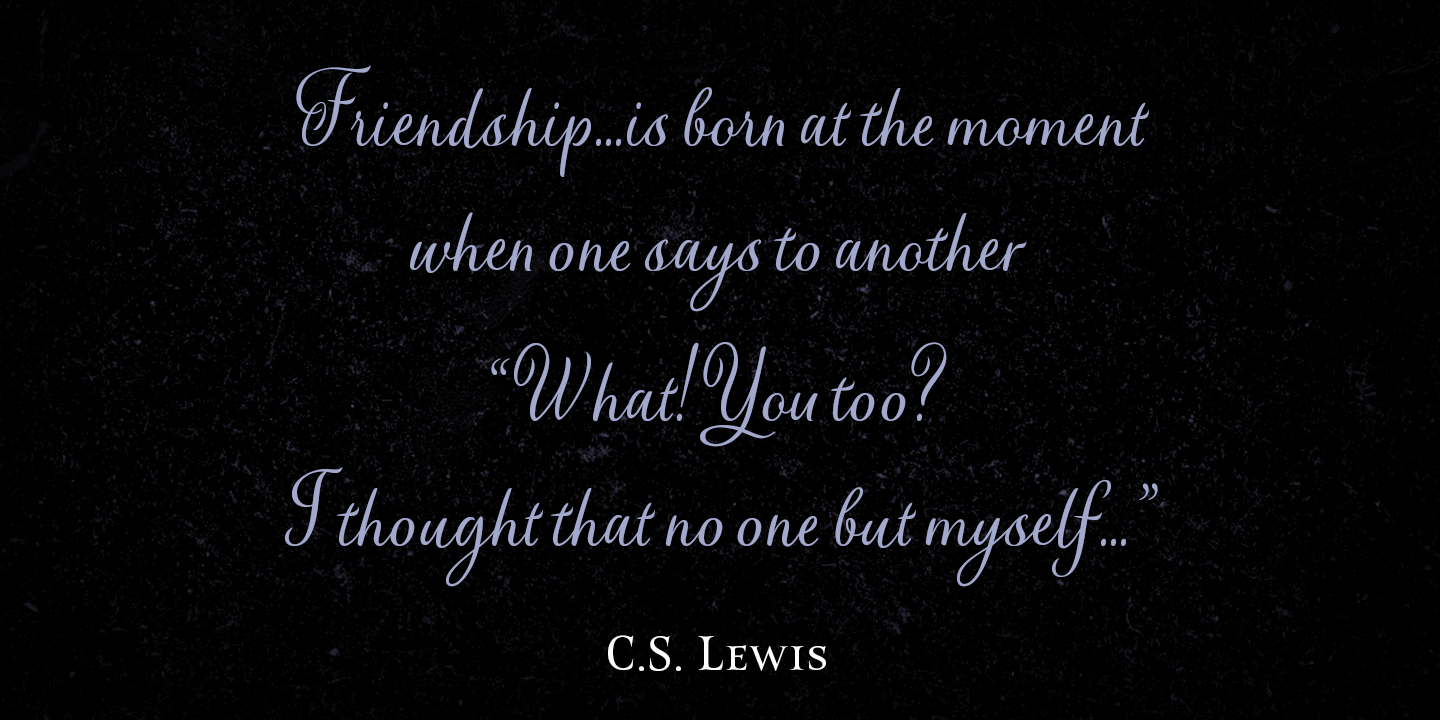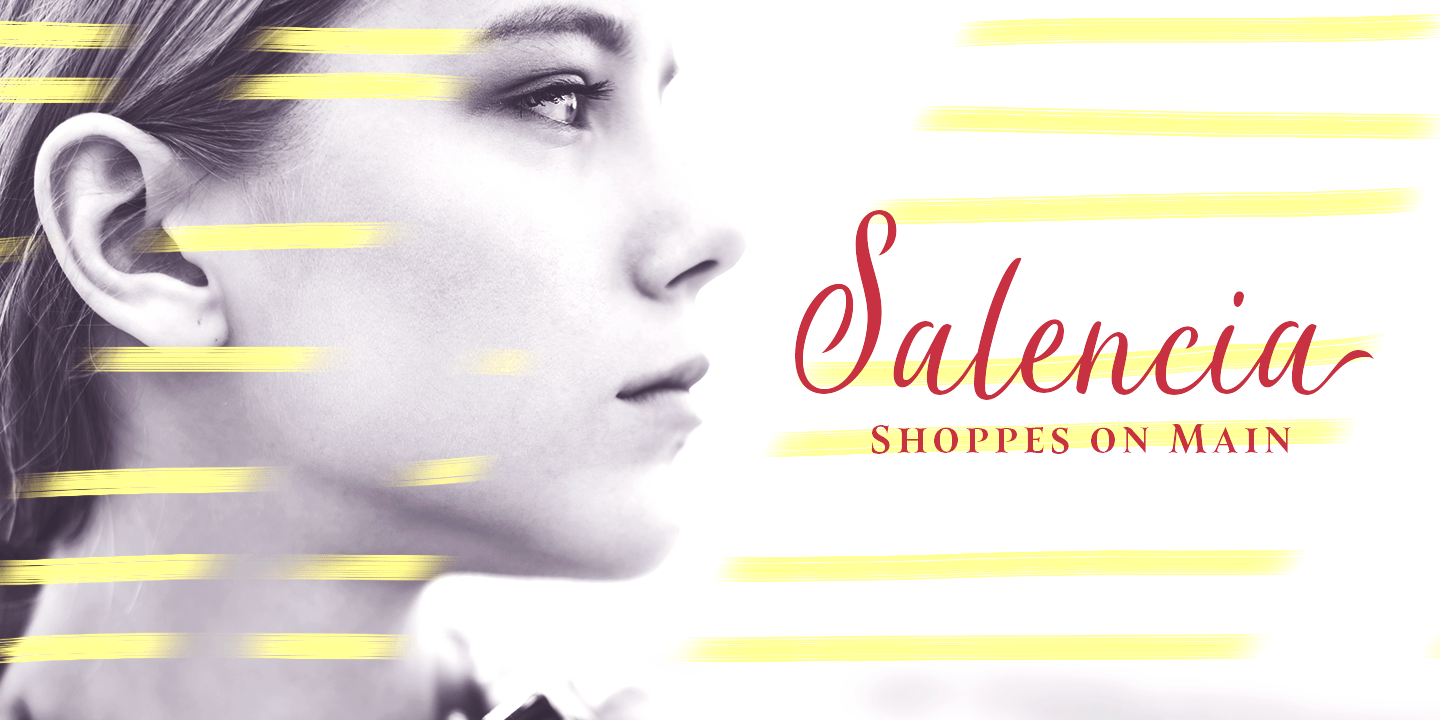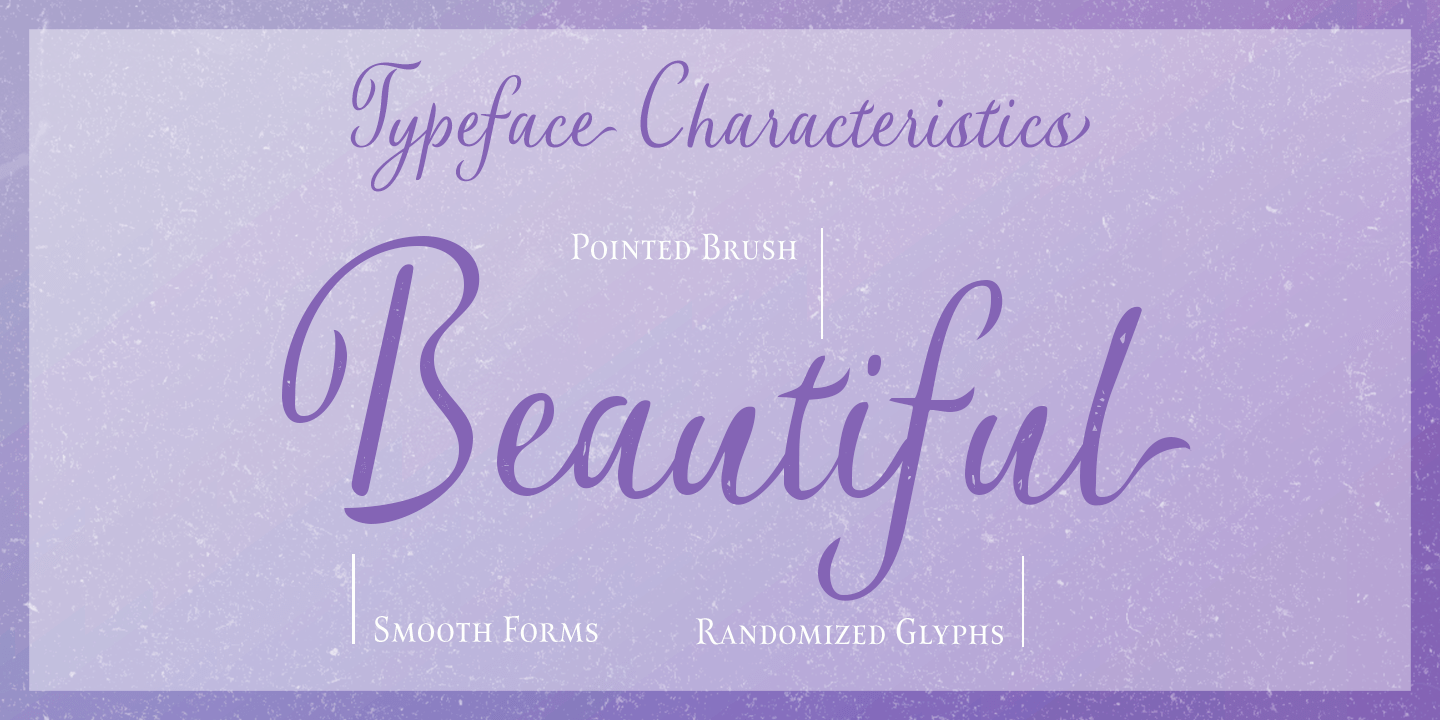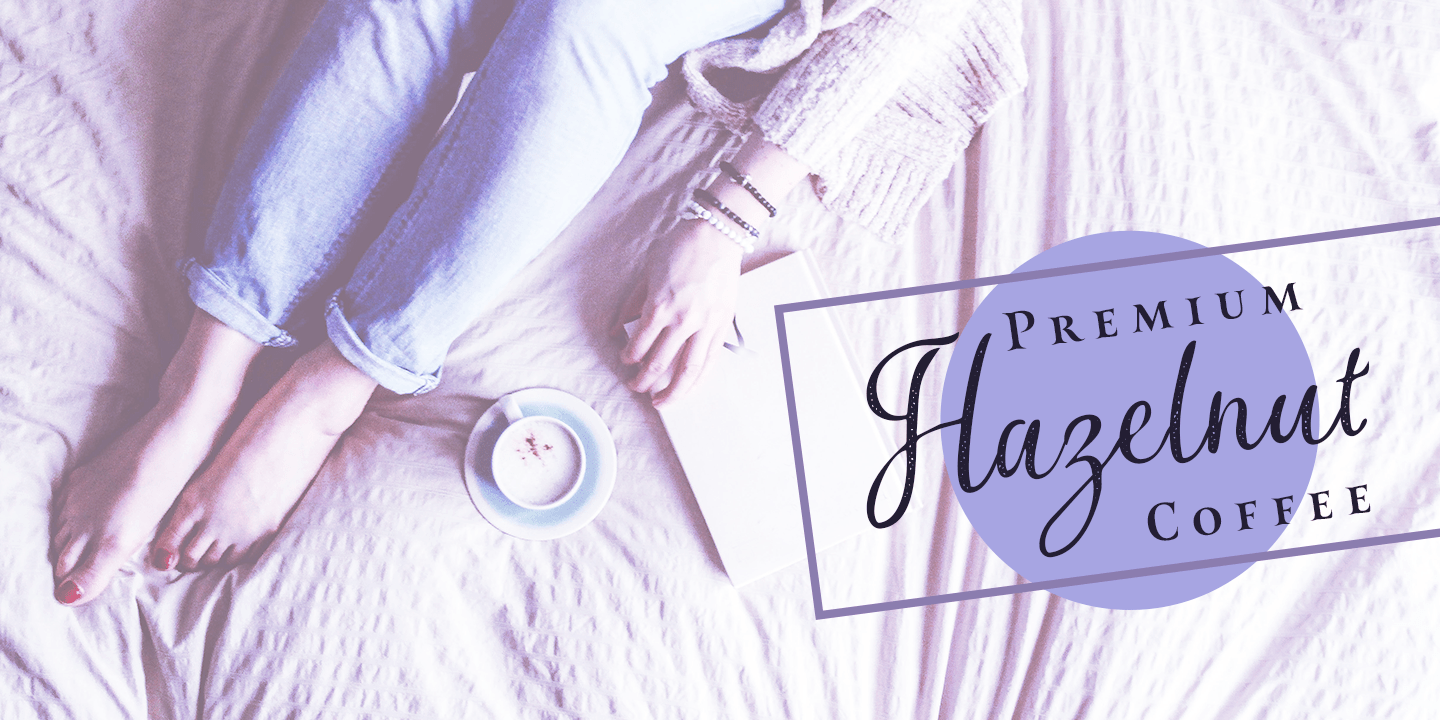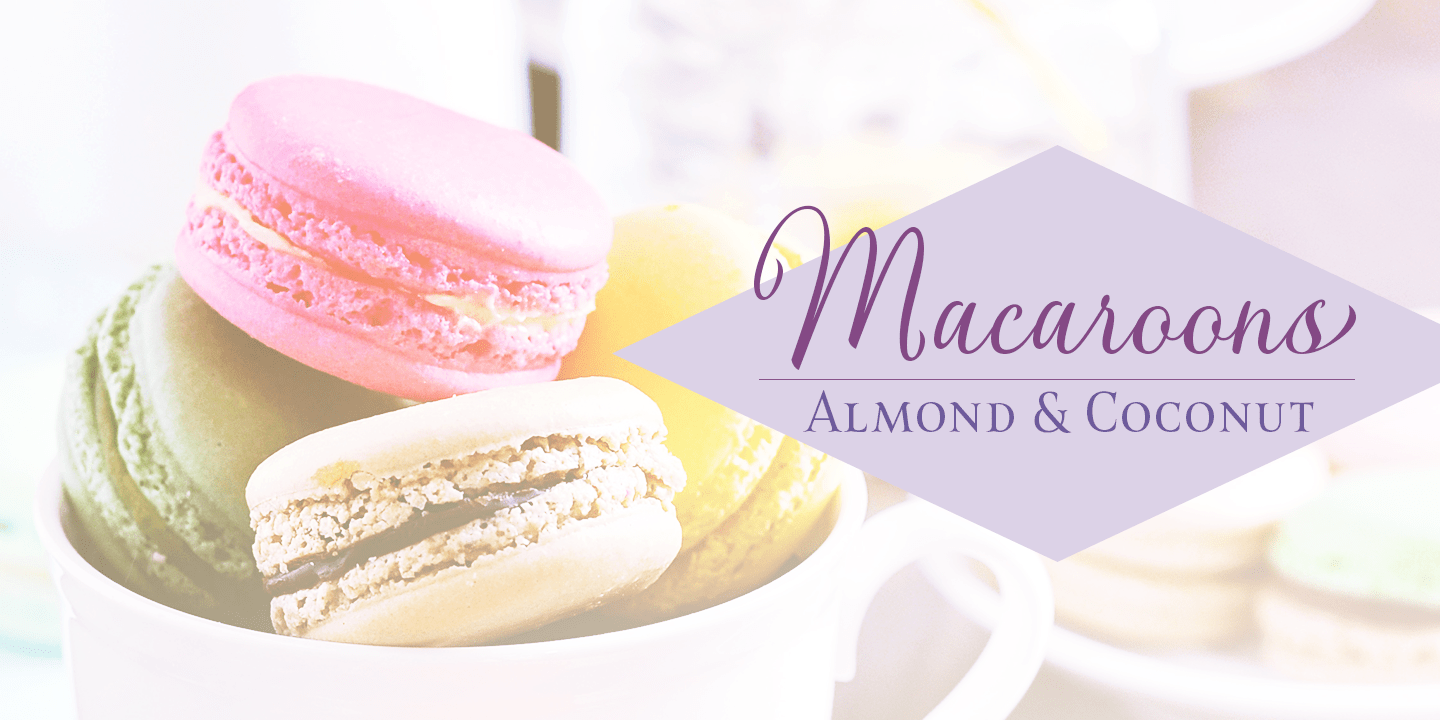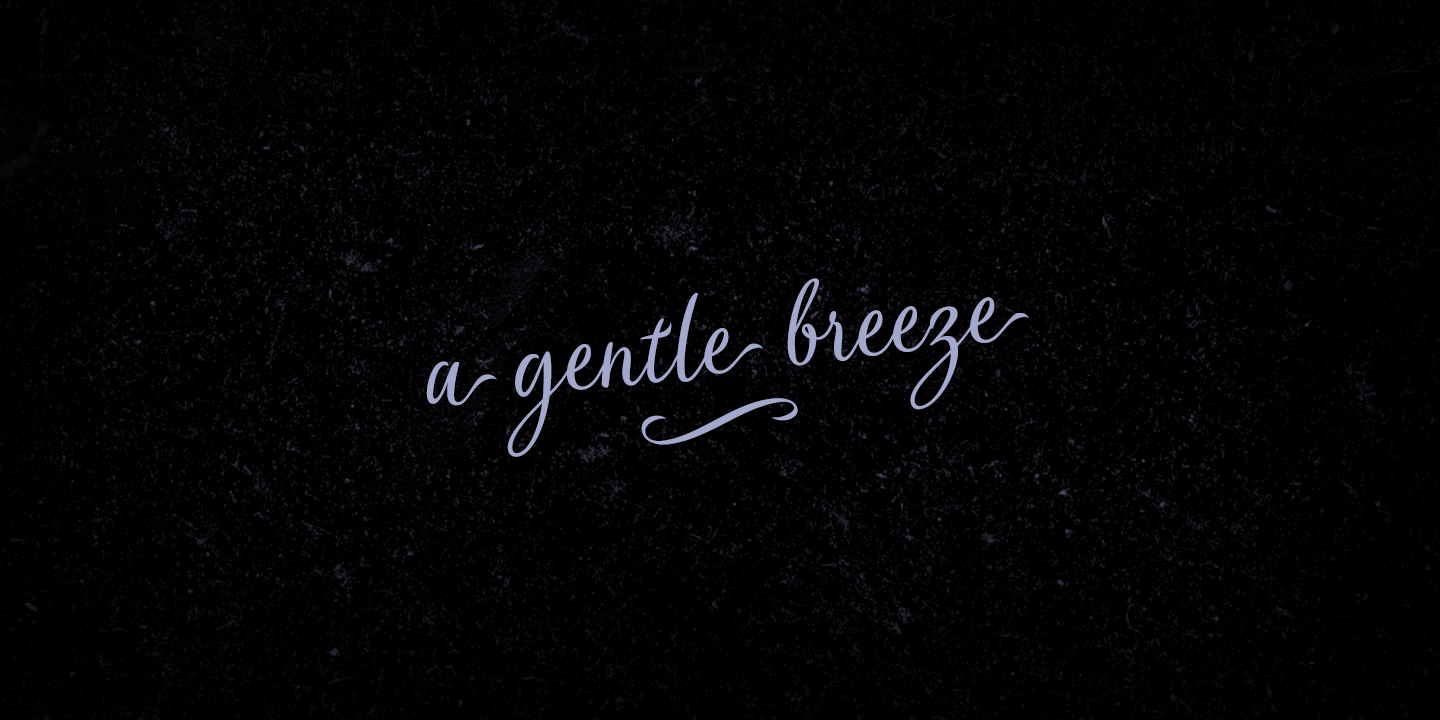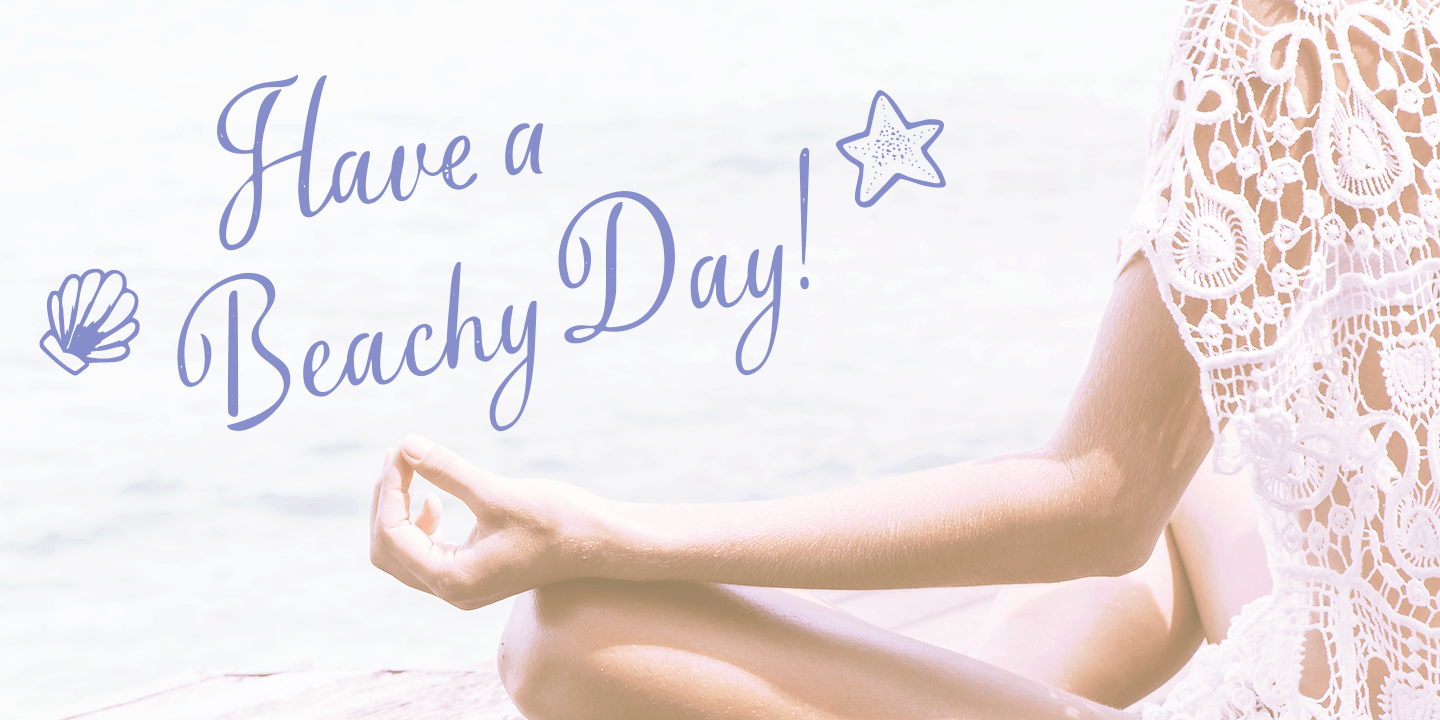
About Verao
Remember clear summer days as a kid? Remember open fields that you explored? Sun shining? Simple breezes sweeping past your face as you ran far and free? The feeling was uncomplicated and enjoyable. It was natural. That\’s Verao, the simple spirit of…